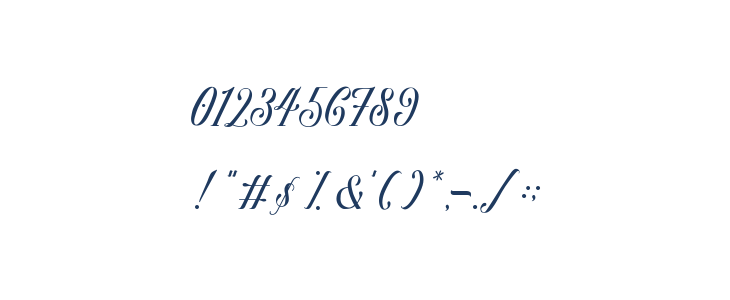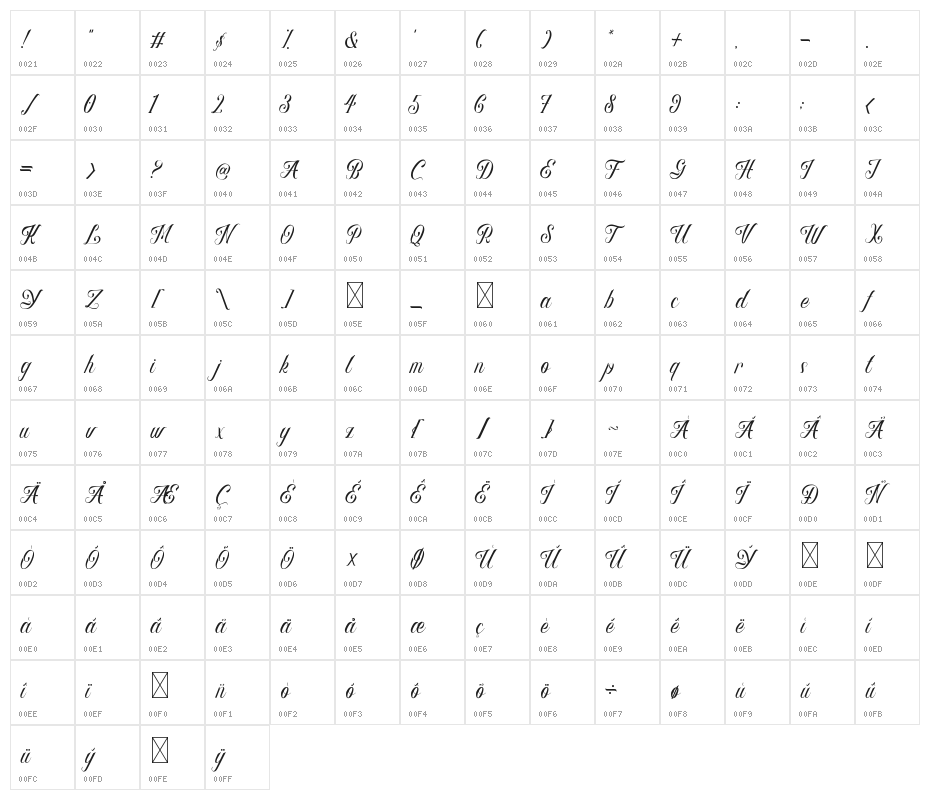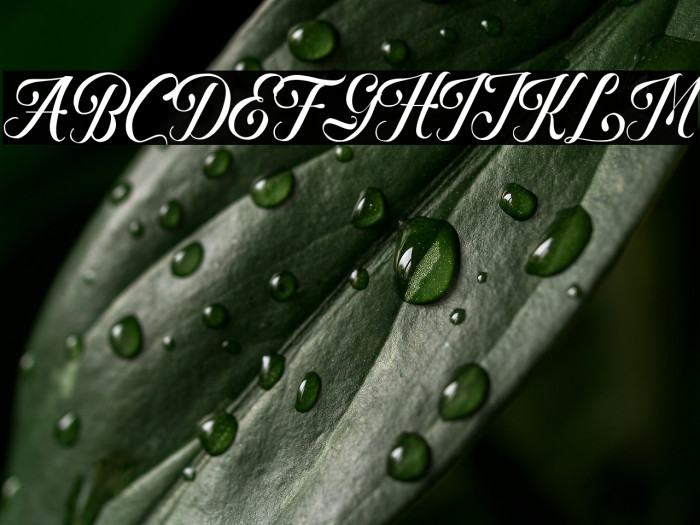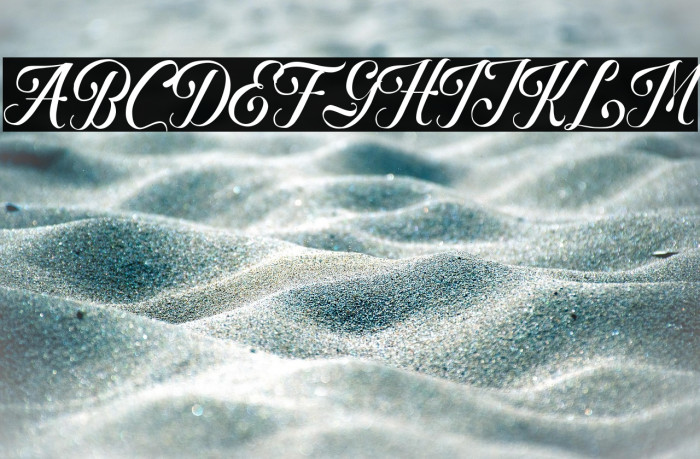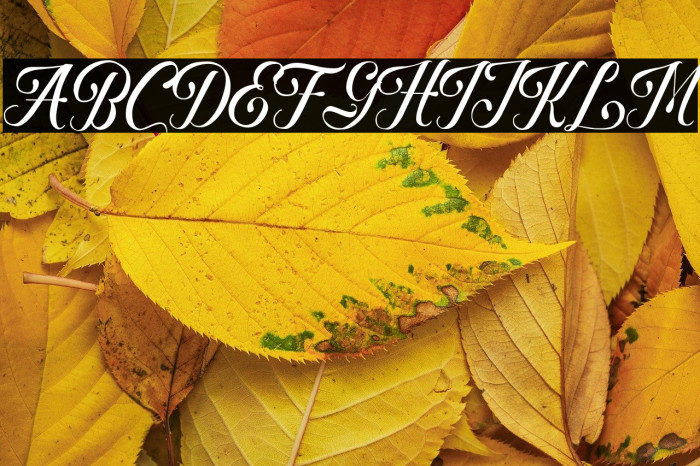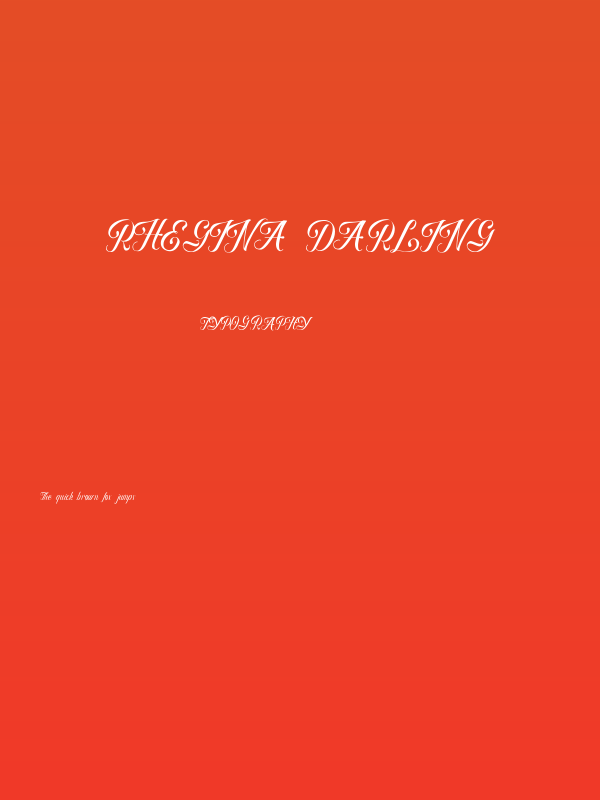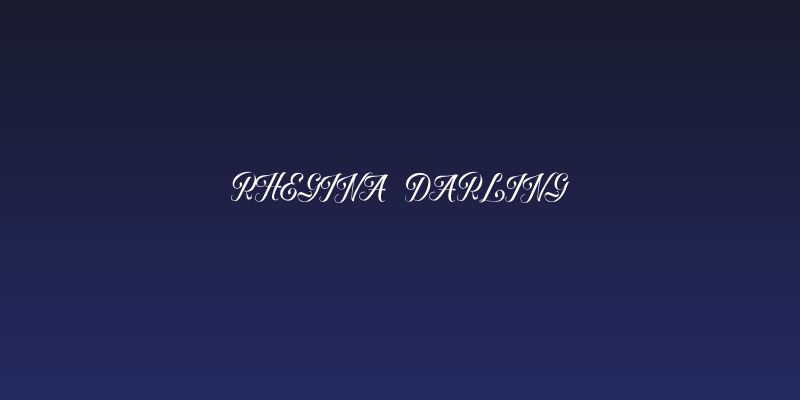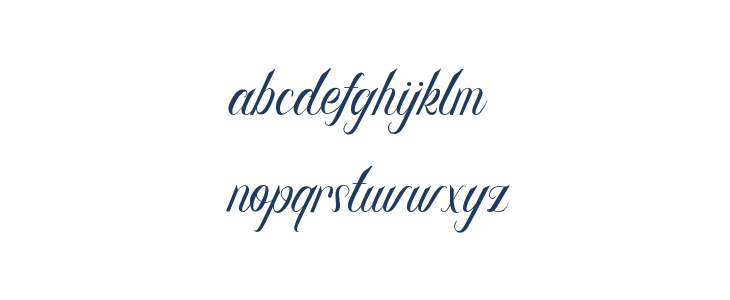
Rhegina Darling Font
Rhegina Darling Description
This elegant script font features flowing, cursive letterforms with intricate swashes and flourishes. The uppercase letters are particularly ornate, with loops and curves that add a sense of sophistication and grace. The lowercase characters maintain a consistent style, offering a harmonious blend with the uppercase. Numbers and special characters are designed with the same attention to detail, ensuring a cohesive look across all elements. The font exudes a classic and timeless appeal, making it suitable for formal and decorative applications.